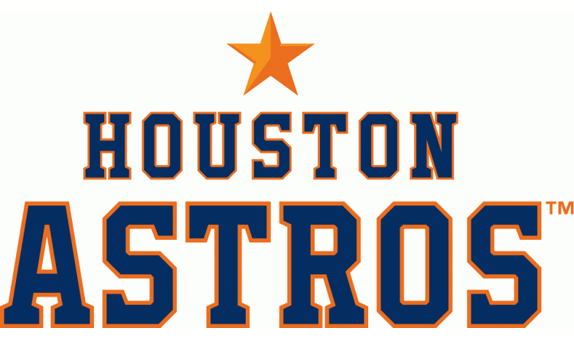
The Current Logo Of The Houston Astros Resembles A Badges That Combines A Beveled Letter “H” With A Star, Two Rings And Two Words “Houston” And “Astros”.
Above The Star Stands The Word ‘Houston’, While The Word ‘Astros’ Is Written Under The Star.